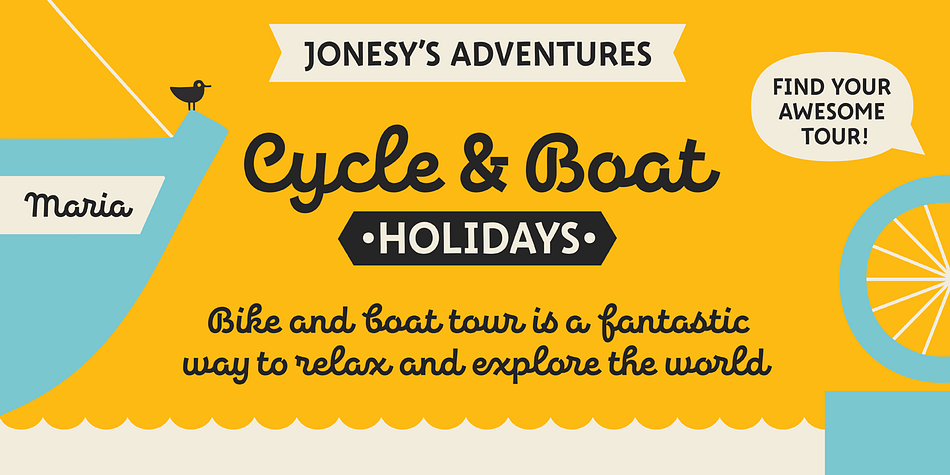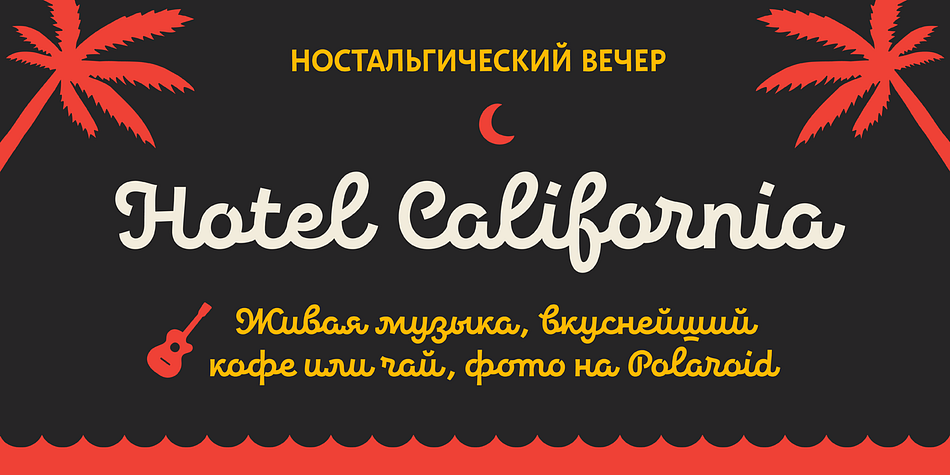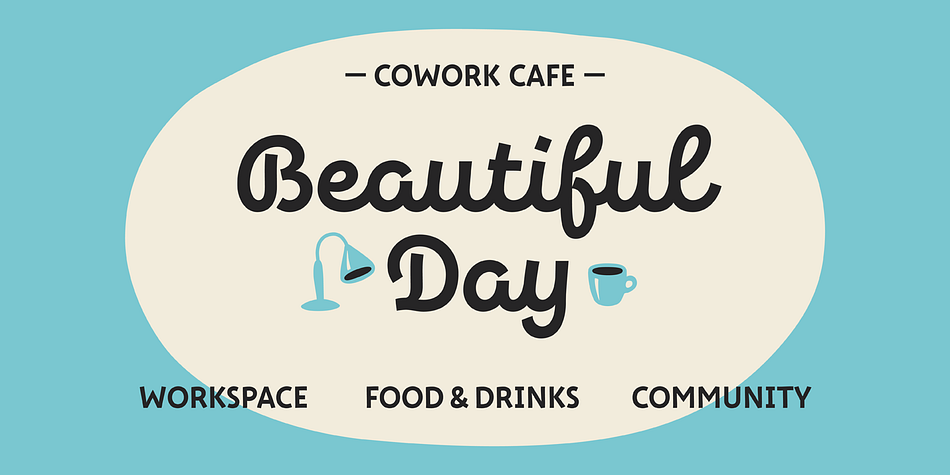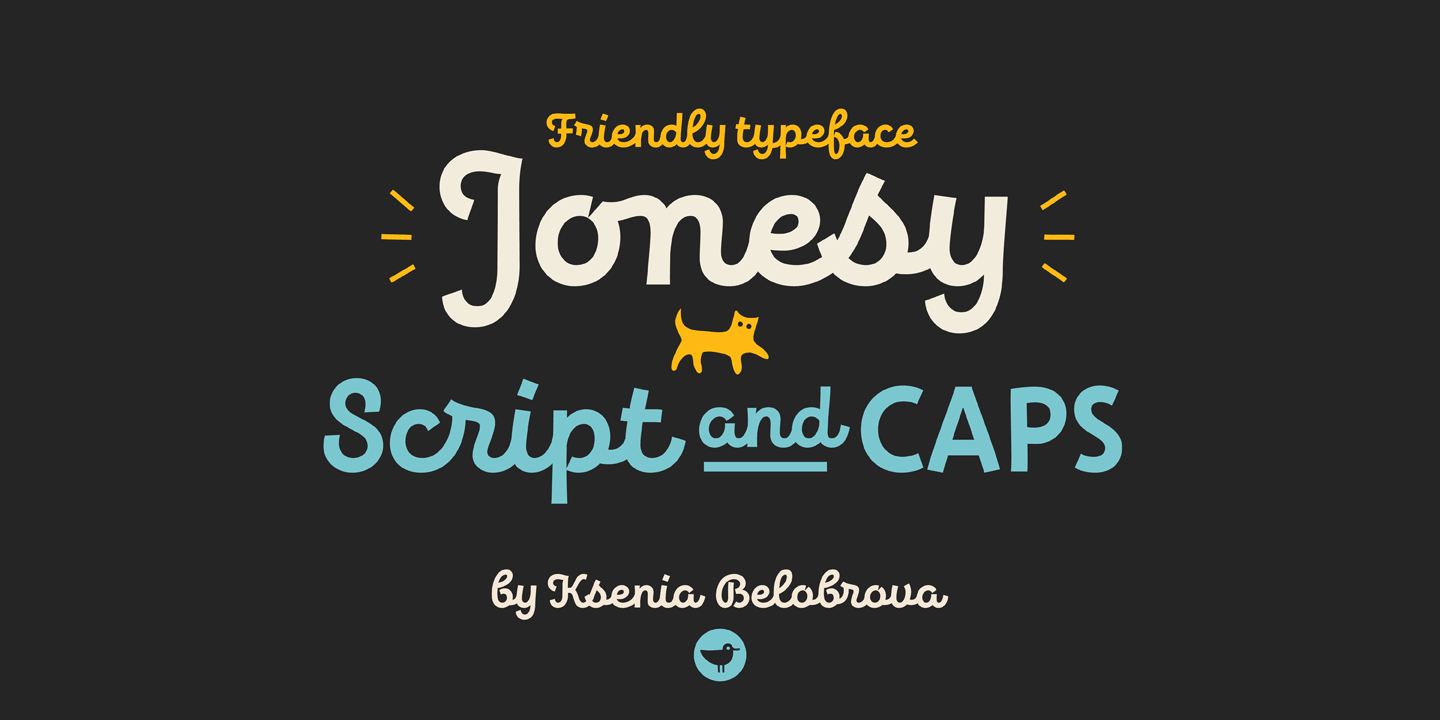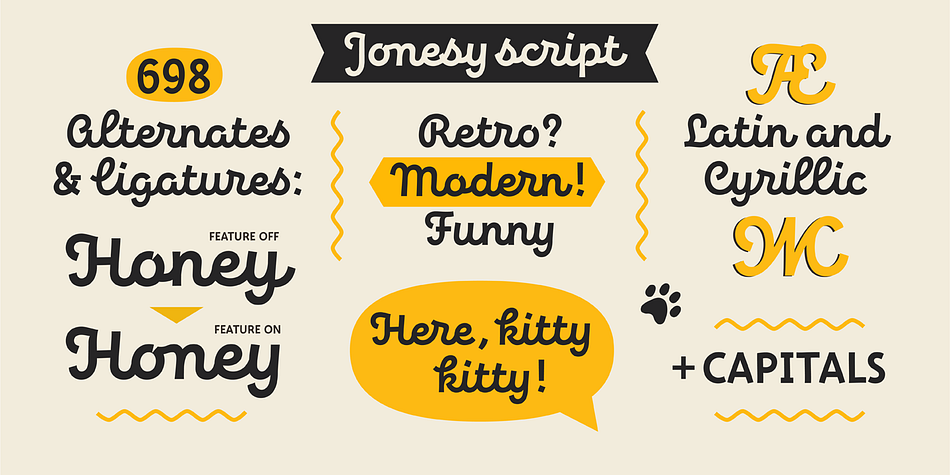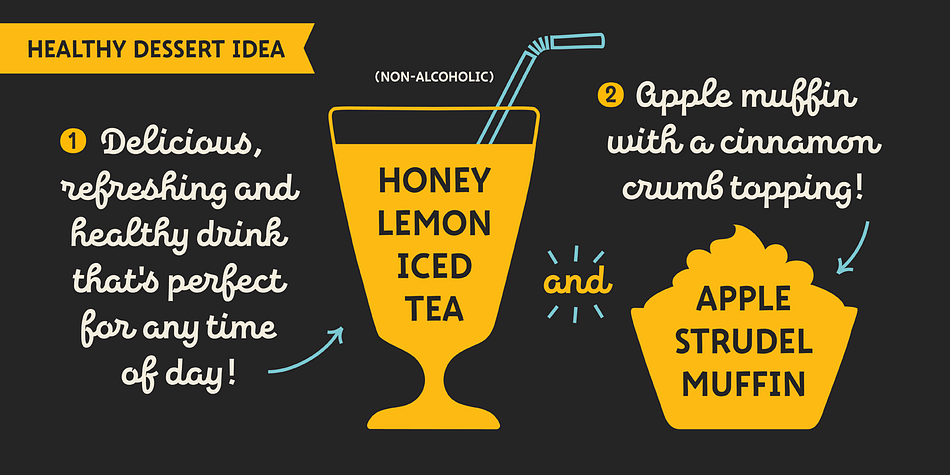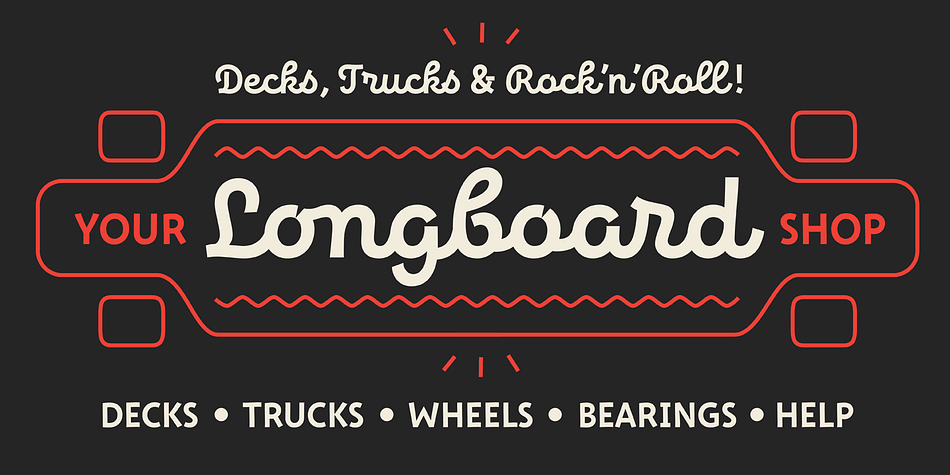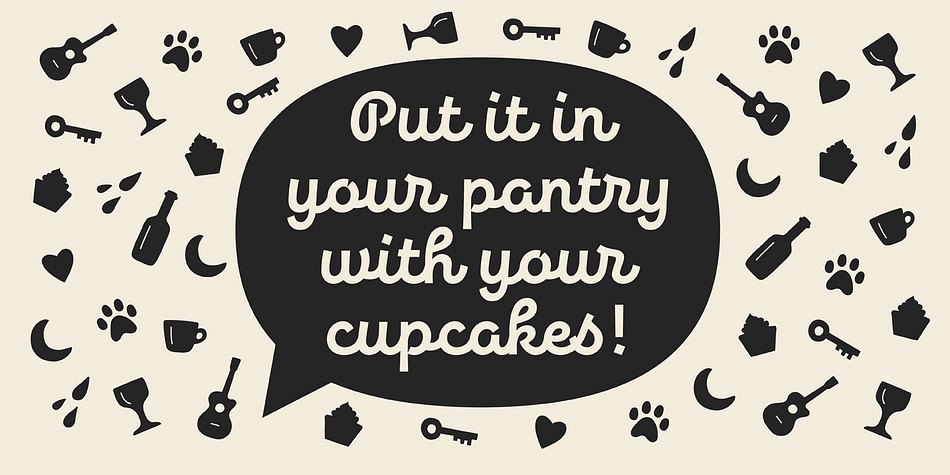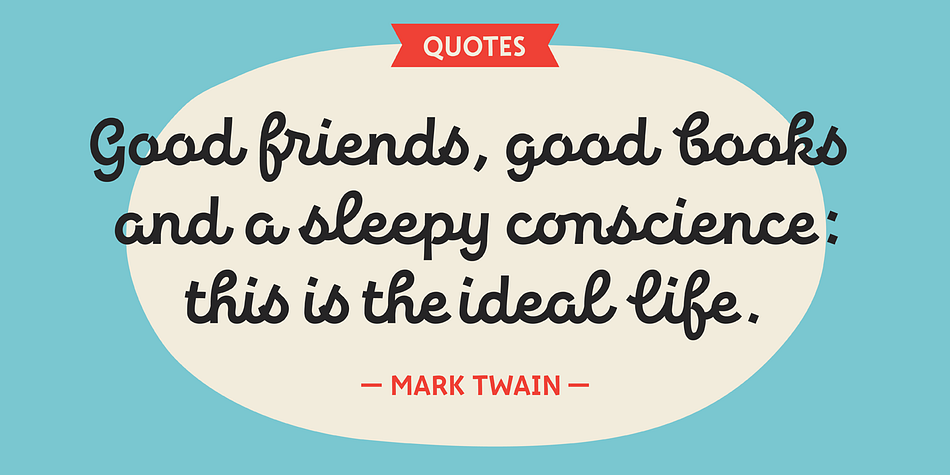
Designed by Ksenia Belobrova, Jonesy is a script, display sans and hand display font family. This typeface has two styles and was published by Ksenia Belobrova.
Jonesy is a funny modern looking script with a touch of vintage. It’s based on calligraphy and pretends to look like real lettering having almost 700 alternates and ligatures, organic forms and realistic connections.
Jonesy is good for menu, packaging, posters and as a starting point for lettering and logos. All contextual alternates are built into the “Liga” feature that is turned on by default. However, when your work with the typeface, please make sure that “Liga” is turned on.